Aster Affects: a Collaborative Typeface for Hurricane Sandy Relief
SOTA, the Society of Typographic Aficionados, has organized a project to raise funds for the Red Cross to help victims of Hurricane Sandy. The project is called Font Aid VI: Aster Effects.
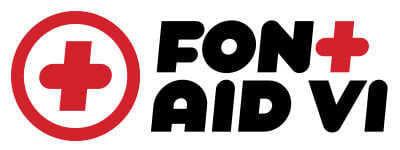
It is the sixth such charitable project undertaken by SOTA. Previous FontAid projects raised funds for the victims of 9/11, as well as earthquakes, tsunamis, and other natural disasters.
To contribute you can create one glyph or symbol for the font, based on an asterisk (hence the name Aster Effects).
Why the asterisk?
An asterisk can denote something that requires attention — and an event of this magnitude and impact certainly deserves some attention. The asterisk can also provide *emphasis* to important information amidst fields of plain text. The root of the word comes from the Greekast?r or “star” – signifying hope and light. In computer terms, it’s a wildcard character … and hurricanes are certainly wild and unpredictable.
Submission Guidelines
Create a single glyph or symbol that is based on the asterisk.
- Artwork must be black and white
- Artwork must be supplied as vector outlines
- Artwork must sized to fit in a 10″ x 10″ square
- Artwork containing any of the following will be rejected:
- Color
- Gradients
- Opened paths
- Stroked paths
- Patterned or textured fills
- Overly complex paths or outlines
- Embedded bitmaps or non-editable imagery
- Live or outlined text
- Glyphs copied from existing typefaces
- Remember, simple is often better
- One glyph per person may be submitted